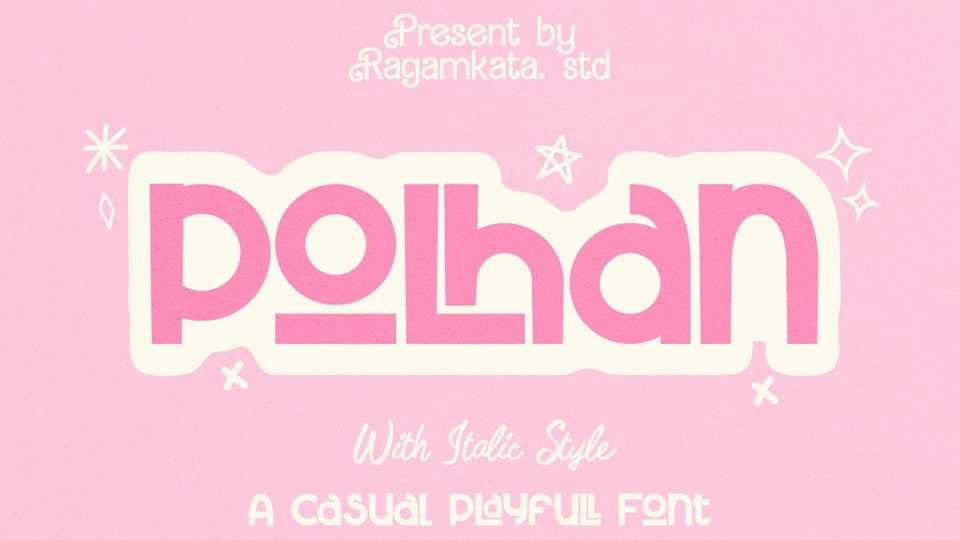
Download Polhan font, a display typeface that combines modern sans serif style with a playful touch, making it the perfect choice for various creative projects.